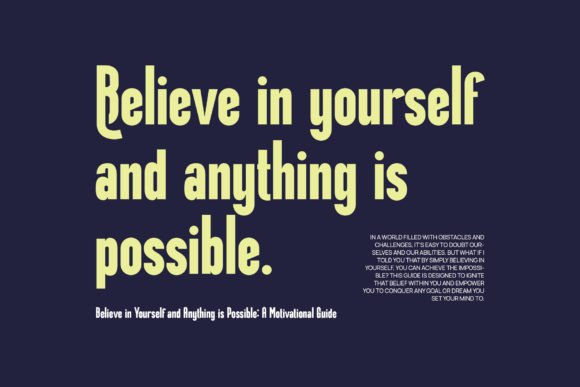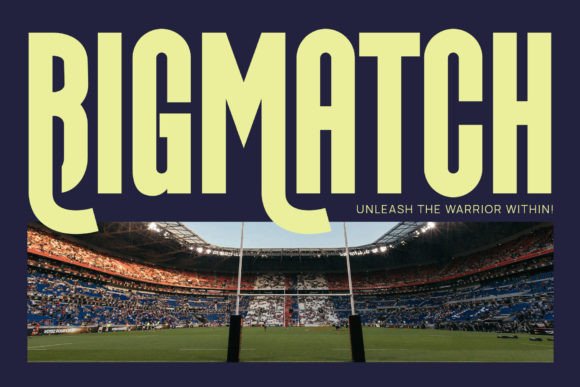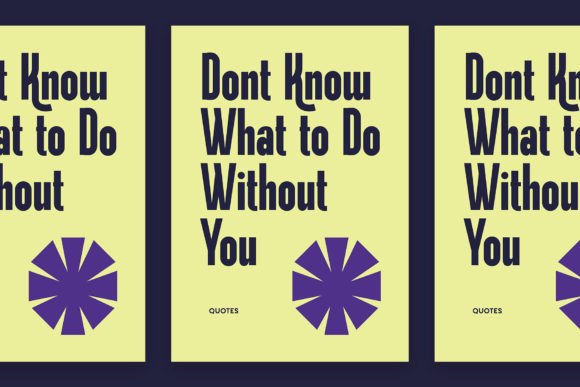
Introduction to Ragiffen Font
Ragiffen is a trendy, bold sans-serif display typeface that commands attention with its striking presence.
With clean lines and geometric shapes, it exudes modernity and confidence, making it perfect for headlines, posters, and branding materials that aim to make a bold statement while maintaining a contemporary edge .
Key Features of Ragiffen Font
Why Choose Ragiffen Font?